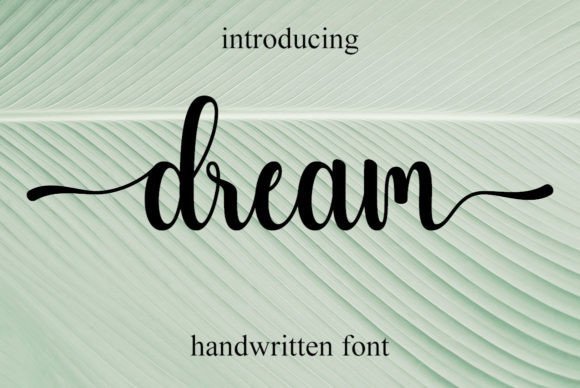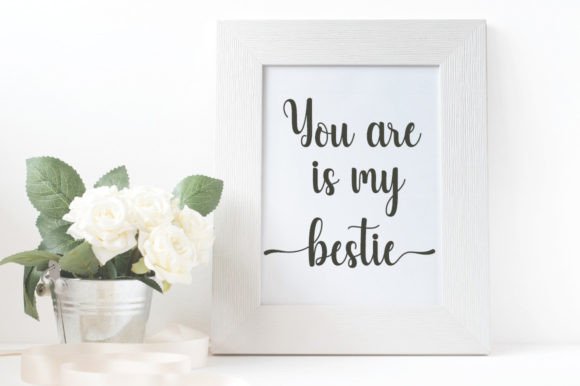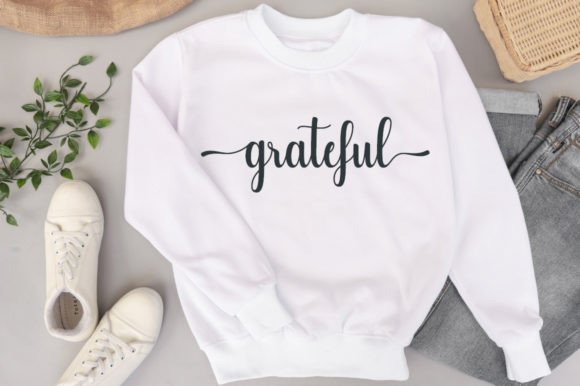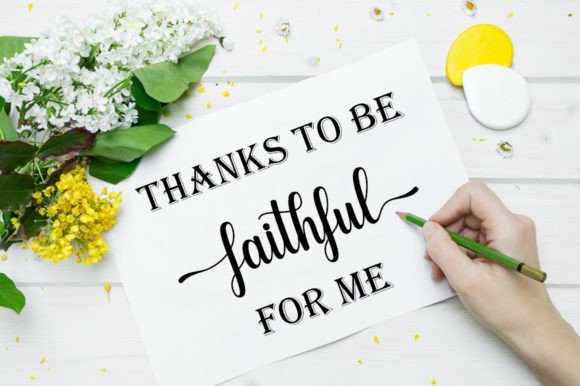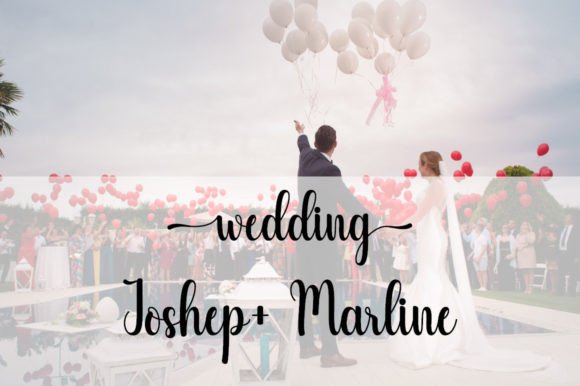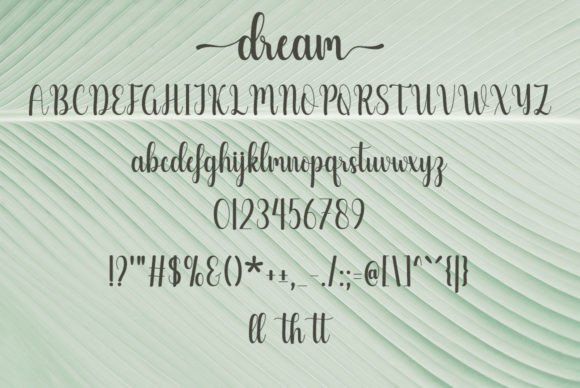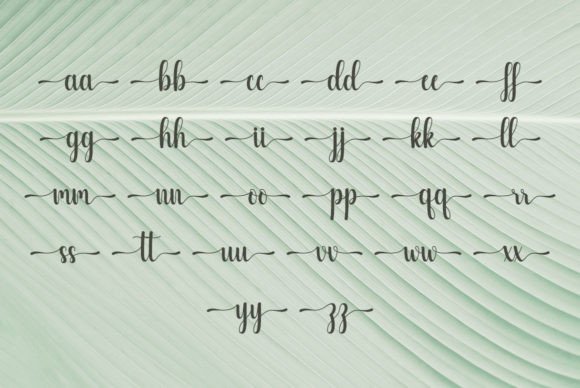
The Perfect Script: Unleashing the Magic of Dream Font
Have you ever found yourself stuck in a creative rut, struggling to find the perfect font to bring your ideas to life? You’re browsing through font libraries, scrolling through social media, and scouring design blogs, but nothing seems quite right. Then, suddenly, you stumble upon a font that makes your heart skip a beat – a font that feels like home, a font that whispers “yes, this is it.” For many designers, that font is Dream Font.
Dream Font is a simple yet charming handwritten font designed to elevate your creative projects. Whether you’re crafting, designing, or creating greeting cards, Dream Font is the perfect companion to help you bring your vision to life. With its PUA encoding, you’ll have access to a wide range of glyphs and swashes, giving you the freedom to experiment and express yourself.
Dream Font Key Features
- Unique Character Set: Includes a wide range of unique characters, including accented letters, symbols, and special glyphs.
- Multi-Language Support: Supports over 100 languages, making it an ideal font for global applications.
- High-Quality Rendering: Features advanced hinting and kerning for smooth, high-quality rendering at various font sizes and resolutions.
- Customizable: Allows for easy customization of font characteristics, including weight, width, and style.
Dream Font Review
I recently had the chance to work with the “Dream Font” and here’s my honest take on it.
- Unique aesthetic: The font has a distinctive, dreamy quality to it that can really make a design stand out.
- Good legibility: Despite its ornate feel, the font is still easy to read, even at smaller sizes.
- Support for various languages: Dream Font covers a wide range of languages, making it a great choice for international projects.
- Limited bold and italic options: While the font has some nice bold and italic styles, the selection is limited compared to other fonts.
- Not ideal for body text: Due to its ornate nature, Dream Font may not be the best choice for large blocks of body text.
Overall, I think Dream Font is a great choice for projects where you want to add a touch of elegance and sophistication. However, it’s not a one-size-fits-all solution, and you may need to use it in conjunction with other fonts to get the best results.
- Use the Dream Font for titles and headings to add a touch of elegance.
- Pair the Dream Font with other fonts to create a unique and stylish design.
- Use the Dream Font for social media graphics and blog posts to add a touch of sophistication.